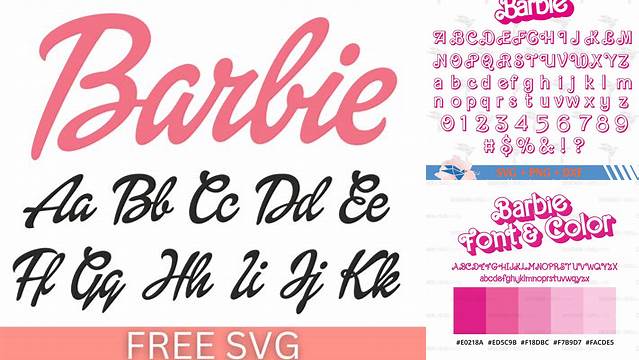
Hey there, DIY enthusiasts and Barbie lovers! Are you looking to infuse your Cricut projects with a touch of Barbie magic? You're in the right place! In this comprehensive guide, we'll explore everything you need to know about the Barbie font, including how to find it, download it for free, and use it in your Cricut Design Space. Get ready to create dazzling designs that channel the iconic style of Barbie! Let’s dive into the fabulous world of fonts and Cricut crafting, ensuring your projects stand out with that signature Barbie flair. Whether you’re crafting party decorations, personalized gifts, or just adding a bit of fun to your everyday items, the right font can make all the difference. So grab your Cricut, fire up your creativity, and let’s get started!
What is the Barbie Font?
The Barbie font is more than just a typeface; it's a symbol of a cultural icon. This font embodies the playful, stylish, and iconic brand that Barbie represents. Known for its distinctive and recognizable style, the font is characterized by its curves, elegance, and a touch of whimsy. It’s the visual essence of Barbie's world, instantly recognizable and evocative of her brand’s identity. But what makes this font so special, and why is it so sought after by crafters and designers alike? The Barbie font is not just about aesthetics; it's about capturing the spirit of a beloved brand that has resonated with generations. When you use the Barbie font, you're not just adding letters to your project; you're adding a piece of cultural history and a touch of timeless elegance. It’s this unique blend of style and nostalgia that makes the Barbie font a favorite for a wide range of creative projects, from birthday party decorations to personalized gifts and beyond. Understanding the essence of the Barbie font helps you appreciate its value and use it effectively in your crafting endeavors.
The History and Evolution of the Barbie Font
The story of the Barbie font is intertwined with the evolution of the Barbie brand itself. Since Barbie's debut in 1959, the brand's visual identity, including its font, has undergone several transformations, each reflecting the changing times and design trends. The original Barbie font had a classic, elegant feel, mirroring the sophistication of the era. Over the years, the font has been tweaked and modernized, but it has always retained a sense of playfulness and style. This evolution reflects Barbie's own adaptability and her ability to stay relevant across decades. Today, the most recognizable Barbie font is a stylish script that exudes femininity and charm. It's this modern script that most people associate with the Barbie brand, and it's the font that we'll focus on in this guide. Understanding the historical context of the Barbie font gives you a deeper appreciation for its design and how it has become an integral part of the Barbie brand. Each iteration of the font tells a story, reflecting the cultural and design trends of its time, and contributing to the enduring legacy of Barbie.
Why Use the Barbie Font in Your Cricut Projects?
Using the Barbie font in your Cricut projects adds a touch of iconic style and recognizable branding to your creations. The distinctive, elegant script instantly evokes the world of Barbie, making your projects stand out with a touch of nostalgia and fun. Whether you're crafting invitations, banners, custom apparel, or personalized gifts, the Barbie font can elevate your designs with its unique charm. It's not just about aesthetics; using the Barbie font connects your projects to a beloved cultural symbol. This font is perfect for a wide range of occasions, from birthday parties and baby showers to themed events and everyday crafts. Imagine the delight of a child receiving a personalized Barbie-themed gift, or the excitement of guests opening invitations adorned with the iconic Barbie script. The Barbie font also offers versatility. It pairs well with various colors and design elements, allowing you to create a cohesive and visually appealing aesthetic. From vibrant pinks and purples to classic black and white, the Barbie font can be adapted to suit your personal style and project requirements. In essence, using the Barbie font in your Cricut projects is a way to infuse them with a sense of joy, style, and cultural relevance.
Top Font Alternatives for the Barbie Font
While the official Barbie font is proprietary, several free font alternatives closely resemble its iconic style. These fonts can be used in your Cricut projects to achieve a similar look and feel, without incurring any costs. One popular alternative is "Billion Dreams," a script font known for its elegant curves and playful demeanor. This font captures the essence of the Barbie font beautifully, making it an excellent choice for a wide range of projects. Another great option is "Amethyst," which features a similar flowing script with a touch of sophistication. Amethyst is particularly well-suited for projects that require a refined and elegant touch, such as wedding invitations or upscale event signage. "Hello Honey" is another font that closely mimics the Barbie aesthetic, with its sweet, whimsical style. This font is perfect for children's birthday parties, baby showers, and other lighthearted occasions. In addition to these specific fonts, exploring script fonts with a flowing, cursive style will often yield results that are similar to the Barbie font. Keywords like "elegant script," "calligraphy font," or "feminine cursive" can help you find suitable alternatives. By experimenting with different fonts, you can discover the perfect typeface to complement your Cricut projects and capture the iconic Barbie style.
So there you have it, guys! Everything you need to know about finding, downloading, and using the Barbie font in your Cricut projects. From understanding the font's history and appeal to mastering the installation and customization process, you're now equipped to create stunning Barbie-inspired designs. Remember, while the official Barbie font is proprietary, there are plenty of fantastic free alternatives that capture the essence of its iconic style. Websites like DaFont, FontSpace, and Google Fonts are treasure troves of free fonts, so be sure to explore them and find the perfect typeface for your projects. Don't be afraid to experiment with different fonts, colors, and design elements to create your own unique aesthetic. The possibilities are endless when you combine the Barbie font with the versatility of Cricut Design Space. Whether you're crafting invitations, gifts, home décor, or anything in between, the Barbie font can add a touch of glamour, fun, and personality to your creations. So go ahead, fire up your Cricut, unleash your creativity, and start crafting! We can’t wait to see the amazing projects you come up with. Happy crafting!